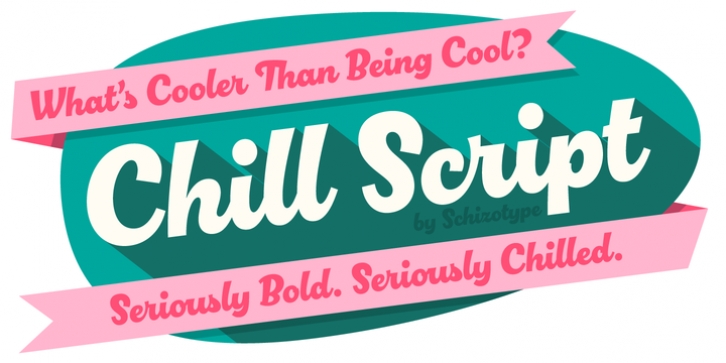
Chill Script was designed by Dave Rowland and published by Schizotype. Chill Script contains 1 style.
Looking for a break from modern calligraphy? Tired of skinny scripts? Here's something seriously relaxed.
Chill Script is a totally new typeface, it eschews any brush influence, but maintains a warmth that comes from not being rigidly constructed. It's a sans serif script, with a nice top-heaviness that makes it friendly. As you expect from fonts today, it's loaded (but not pointlessly overloaded) with OpenType features.